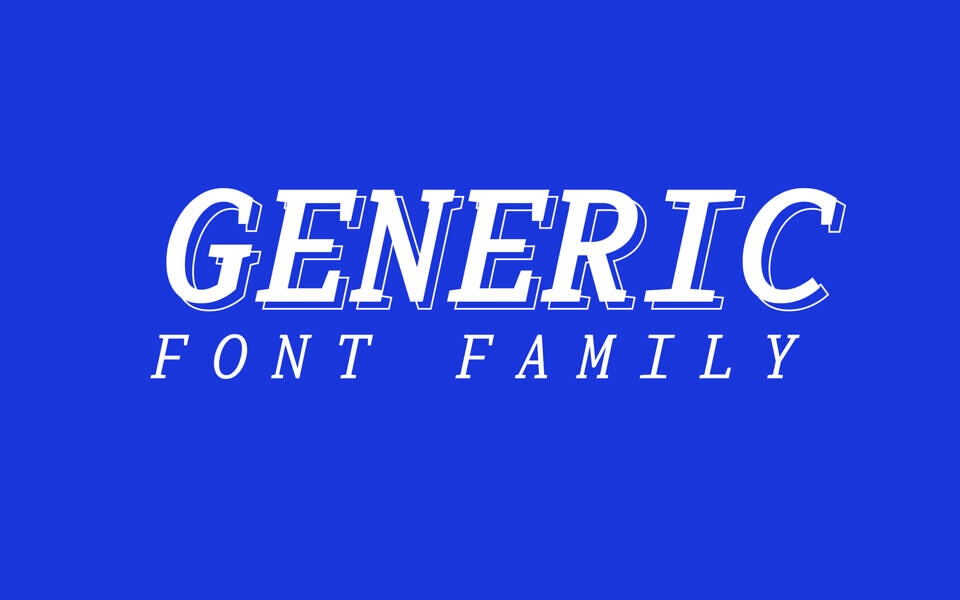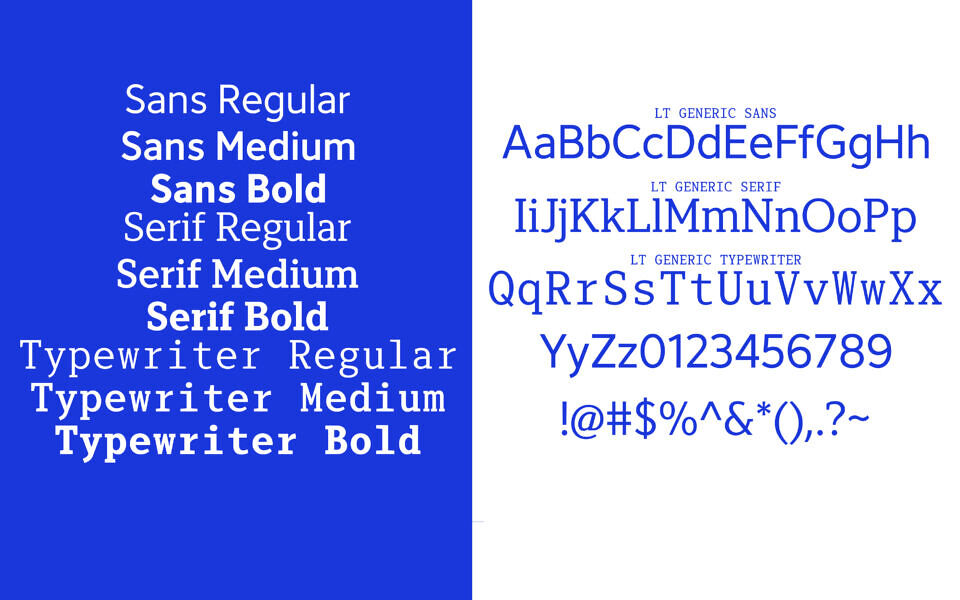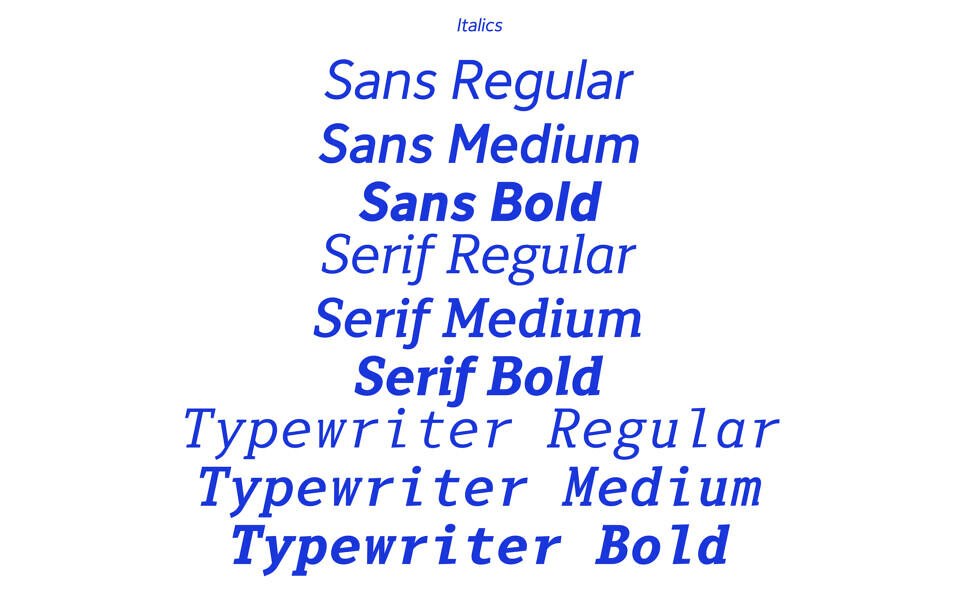
LT Generic is a versatile font family available in Sans, Serif, and Typewriter styles, offering a clean and professional look for a wide range of design projects. The family includes Regular, Italic, Medium, Medium Italic, Bold, and Bold Italic variants, making it suitable for branding, editorial design, websites, user interfaces, and creative typography work.
Includes:
- Sans (Regular, Italic, Medium, Medium Italic, Bold, Bold Italic)
- Serif (Regular, Italic, Medium, Medium Italic, Bold, Bold Italic)
- Typewriter (Regular, Italic, Medium, Medium Italic, Bold, Bold Italic).